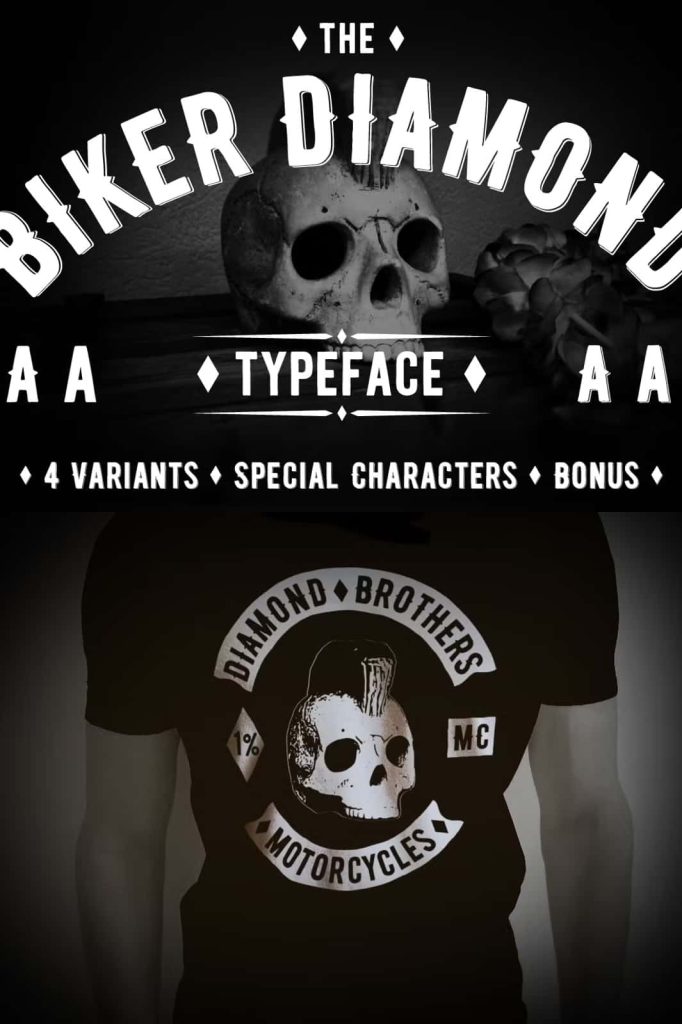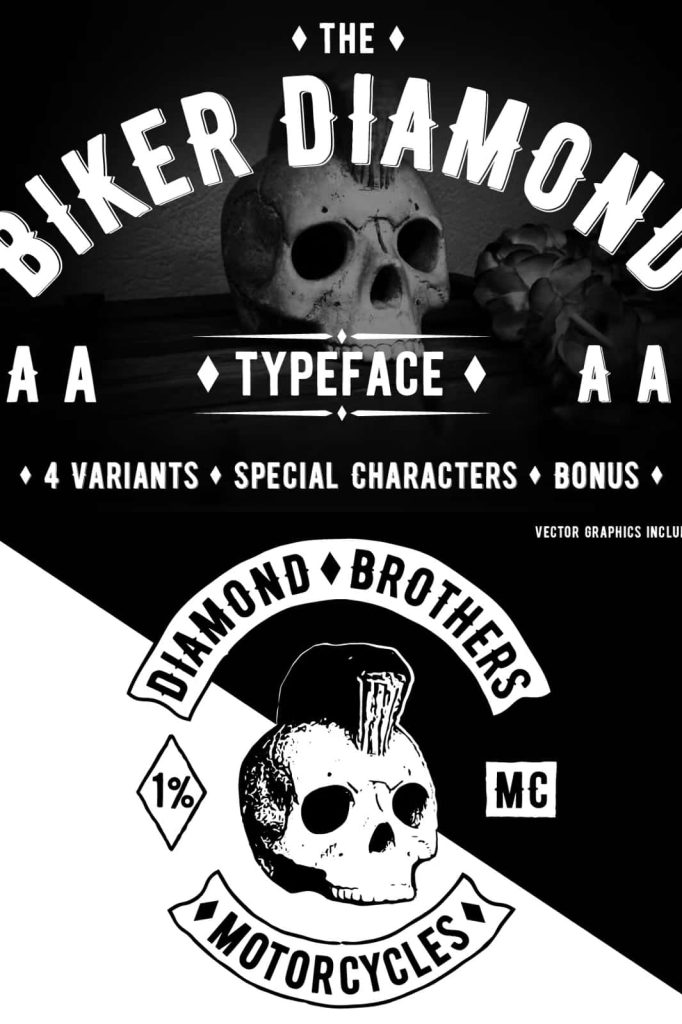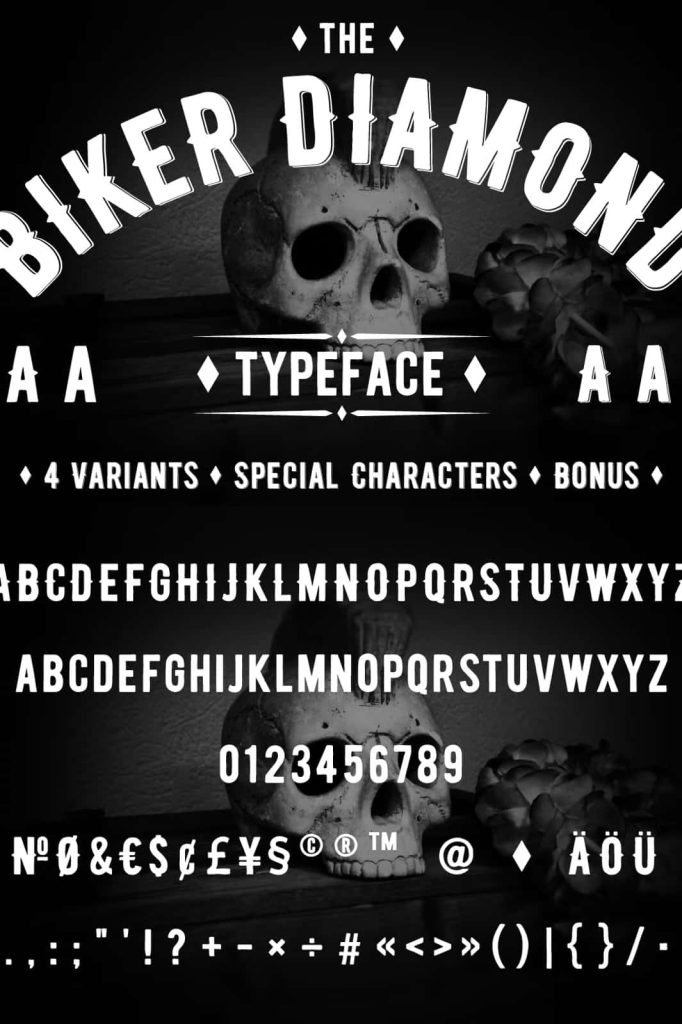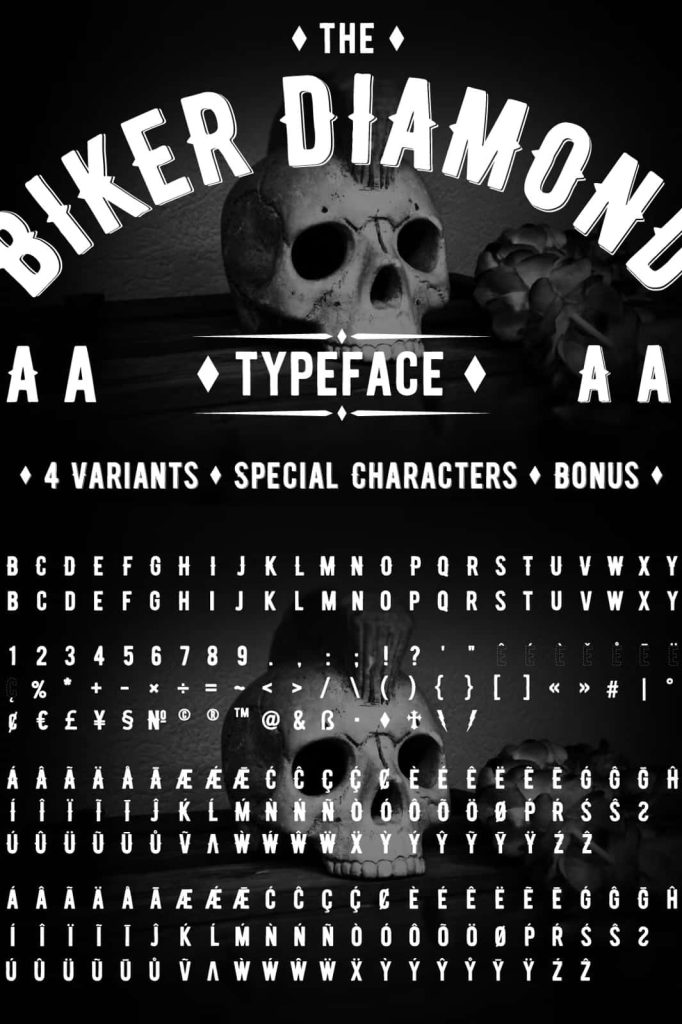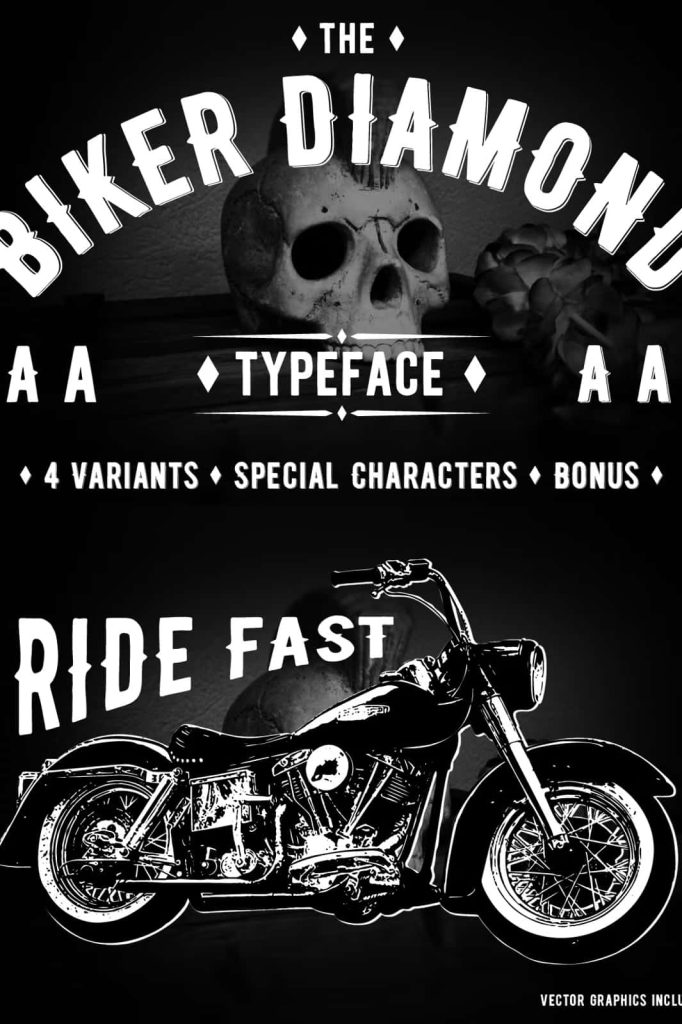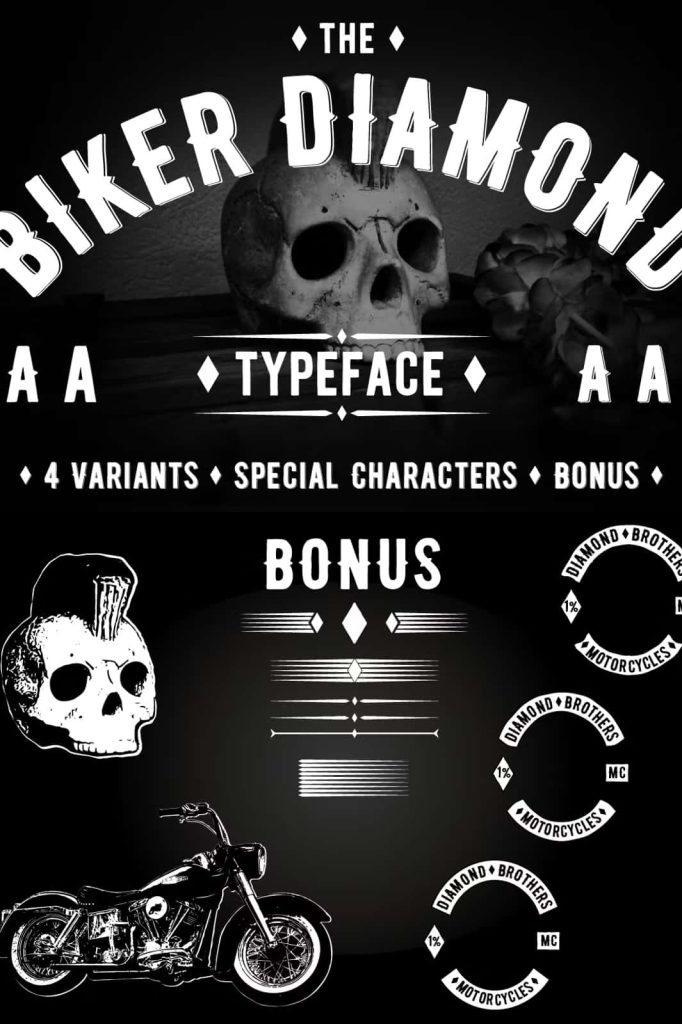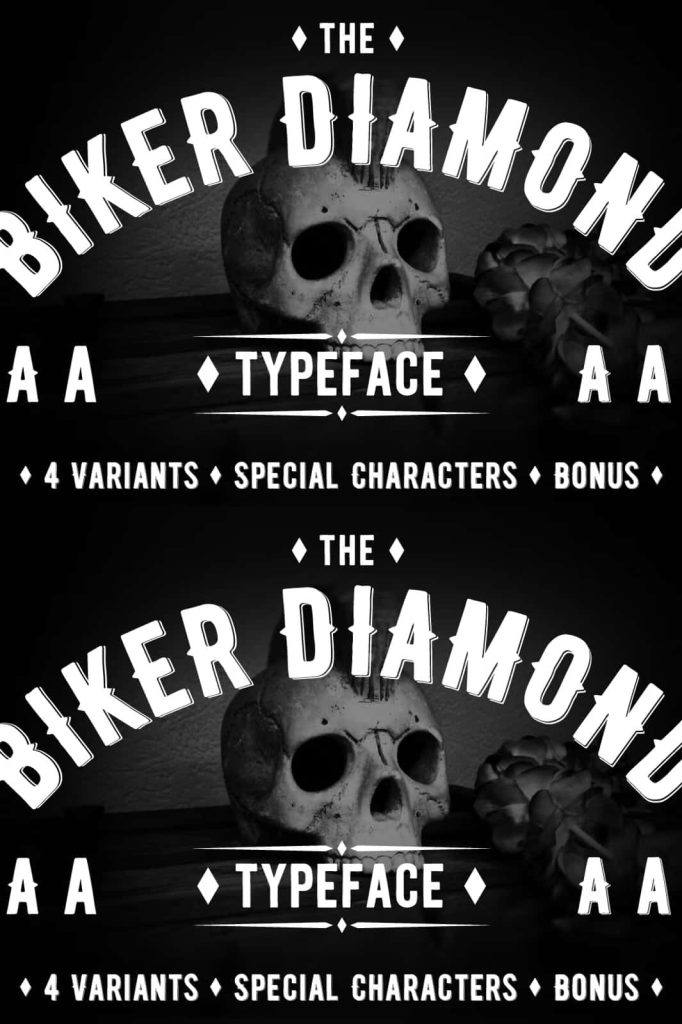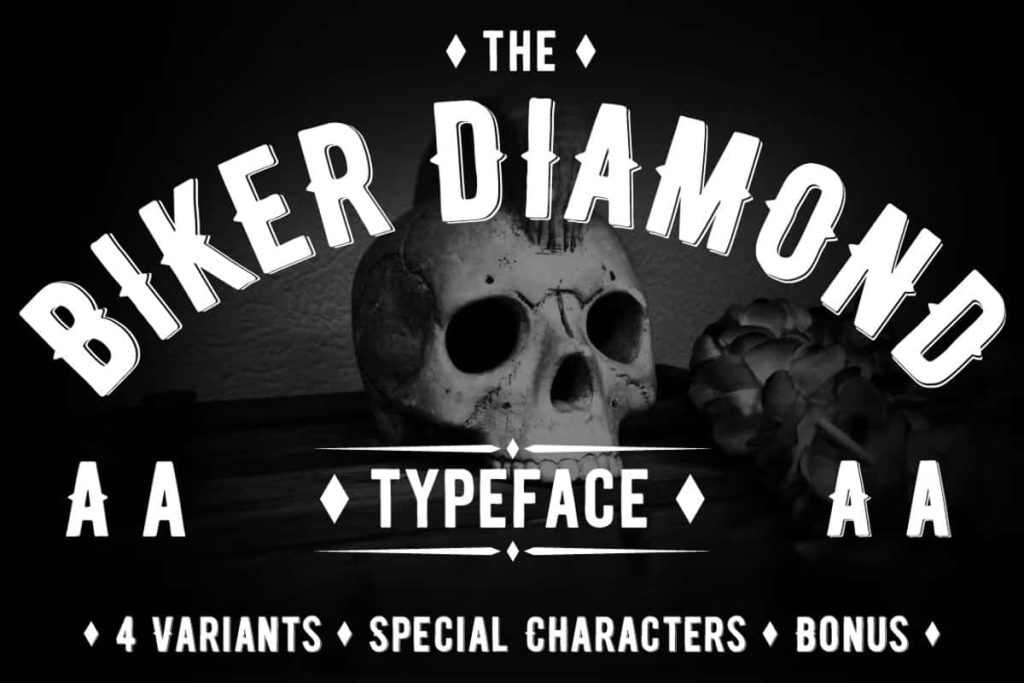
Biker Diamond Typeface
Hand Made Biker Style Font
Hand Made Biker Style Font is a bold and authentic typeface inspired by motorcycle culture, custom garage artwork, vintage road signs, and handcrafted lettering. Every character captures the fearless attitude of classic biker aesthetics while maintaining excellent readability for modern design projects. Whether you’re creating branding for a motorcycle club, designing apparel, or producing eye-catching merchandise, this font delivers a strong personality that immediately stands out.
Created with a handcrafted approach, this font embraces natural imperfections that make every letter feel genuine and full of character. Instead of relying on rigid geometric shapes, the Hand Made Biker Style Font features organic strokes, bold curves, and rugged details that bring warmth and authenticity to every composition.
Authentic Handcrafted Design
The Hand Made Biker Style Font celebrates the timeless appeal of handcrafted typography. Inspired by traditional sign painting, custom motorcycle graphics, and vintage workshop lettering, this typeface combines artistic freedom with professional quality.
Each letter has been carefully designed to create a consistent visual rhythm while preserving the handcrafted appearance that makes the font unique. The result is a typeface that feels bold, confident, and naturally expressive without appearing overly polished or mechanical.
This handcrafted style makes the font an excellent choice for designers who want to create projects with personality, authenticity, and a strong visual identity.
Perfect for Motorcycle and Vintage Branding
The Hand Made Biker Style Font works exceptionally well for brands that want to communicate strength, adventure, and freedom. Its rugged appearance instantly creates a connection with classic motorcycle culture while remaining versatile enough for many creative industries.
You can confidently use this font for:
• Motorcycle club logos
• Custom garage branding
• Vintage apparel designs
• T-shirt graphics
• Helmet decals
• Motorcycle event posters
• Garage signage
• Cafe racer branding
• Tattoo studio logos
• Barber shop identities
• Beer labels
• Product packaging
• Social media graphics
• YouTube thumbnails
• Website headers
• Merchandise collections
• Custom stickers
• Album covers
• Editorial layouts
• Promotional materials
Bold Style That Commands Attention
One of the biggest strengths of the Hand Made Biker Style Font is its ability to capture attention instantly. The thick strokes, handcrafted texture, and confident letterforms allow headlines and logos to remain highly visible across both digital and printed media.
The font creates a powerful visual impact without sacrificing readability. Whether displayed on large banners or smaller promotional items, every letter remains clear and distinctive.
This balance between boldness and legibility makes the typeface suitable for professional branding as well as personal creative projects.
Versatile Across Multiple Design Styles
Although inspired by biker culture, this font adapts beautifully to many different creative themes. Designers can pair it with vintage illustrations, distressed textures, minimalist layouts, or modern branding systems to achieve completely different visual results.
Its versatility allows it to complement numerous design directions, including:
• Vintage
• Retro
• Rustic
• Industrial
• Western
• Classic Americana
• Rock and Roll
• Garage Style
• Adventure
• Outdoor Lifestyle
• Handcrafted Branding
Designed for Professional Creators
The Hand Made Biker Style Font offers creative professionals a dependable typeface for building memorable visual identities. Graphic designers, illustrators, apparel brands, content creators, and marketing teams can all benefit from its handcrafted appearance and distinctive personality.
The font performs beautifully in logos, branding systems, promotional campaigns, packaging, social media content, print advertisements, and editorial designs. Its handcrafted nature helps brands establish a more personal and authentic relationship with their audience.
Create Memorable Branding
Strong typography often becomes the foundation of successful branding. The Hand Made Biker Style Font helps businesses establish a bold identity that customers remember. Whether you’re launching a motorcycle workshop, creating an apparel brand, or promoting a custom lifestyle business, this font communicates confidence, craftsmanship, and originality.
Its handcrafted details create an emotional connection that machine-perfect fonts often cannot achieve, giving every project a unique and timeless appearance.
Why Choose Hand Made Biker Style Font?
• Authentic handcrafted appearance
• Bold biker-inspired character
• Excellent readability
• Ideal for logos and branding
• Perfect for apparel and merchandise
• Suitable for both print and digital media
• Strong vintage personality
• Versatile across multiple creative industries
• Professional-quality craftsmanship
• Creates memorable visual identities
The Hand Made Biker Style Font combines rugged craftsmanship, vintage inspiration, and bold personality into a versatile typeface that elevates creative projects of every kind. Its handcrafted design captures the spirit of motorcycle culture while offering the flexibility needed for modern branding, logos, apparel, posters, merchandise, packaging, and digital content.
If you’re searching for a font that communicates confidence, authenticity, and timeless style, the Hand Made Biker Style Font is an outstanding choice. It gives every design a distinctive handcrafted feel that leaves a lasting impression and helps your creative work stand apart from the crowd.